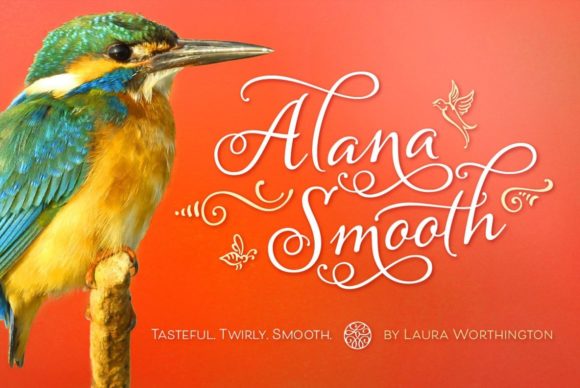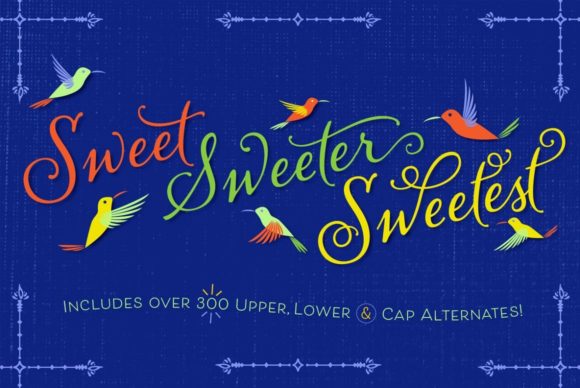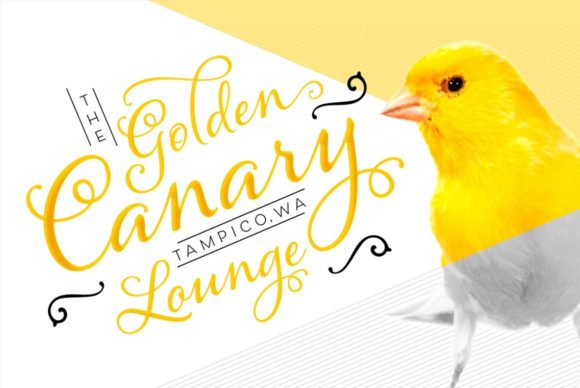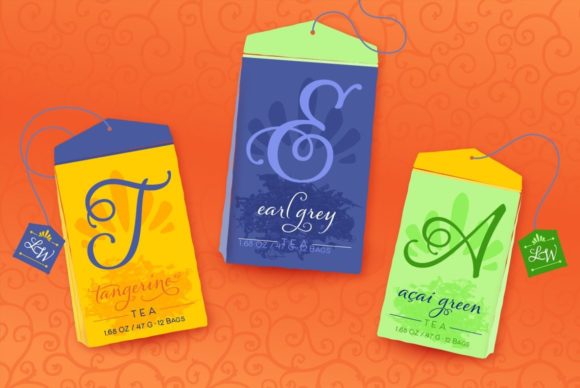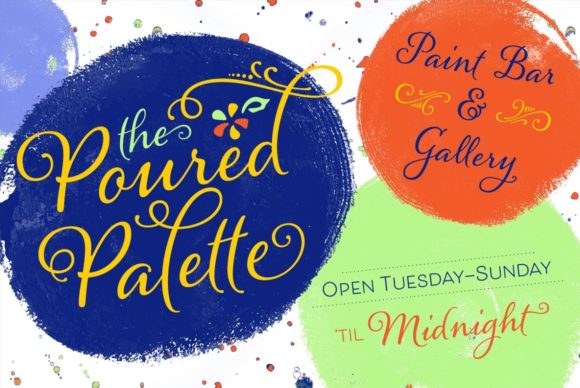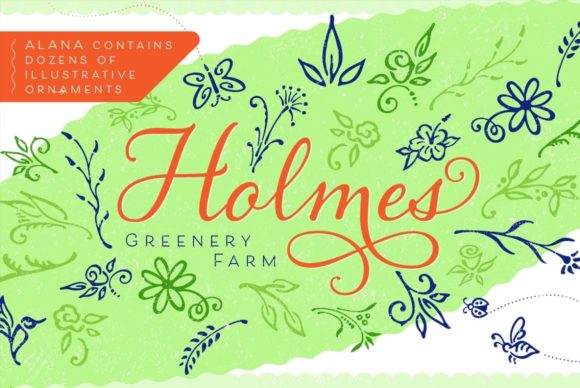
Alana Smooth Font
About Alana Smooth Font
Alana Smooth is a connected script font that glows with casual elegance. Its inviting letterforms work well in settings such as letter-writing and menu details, even at small sizes. This font is PUA encoded, which means you can access all of the glyphs and swashes with ease!